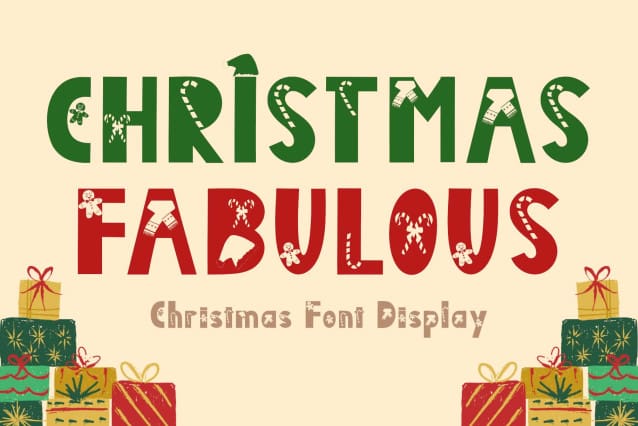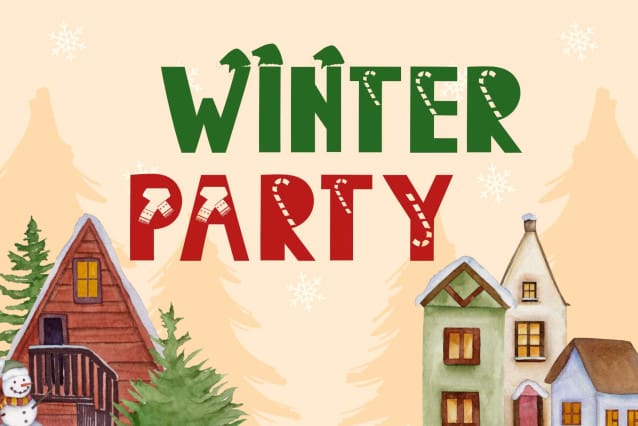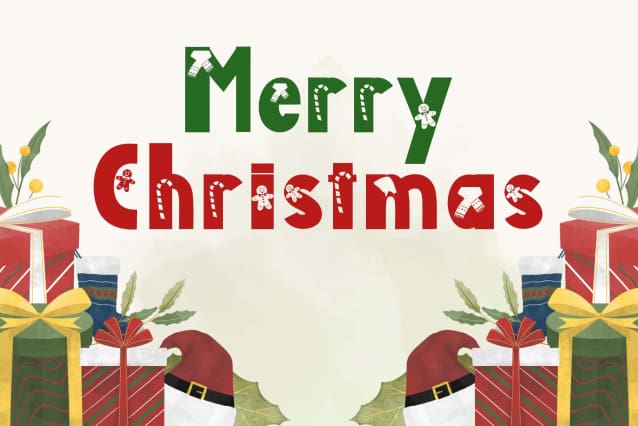
Christmas Fabulous Font
Christmas Fabulous Font is a bold, festive font with decorative letters filled with fun Christmas elements like stars, trees, and ornaments. It’s perfect for adding a cheerful holiday spirit to your designs!